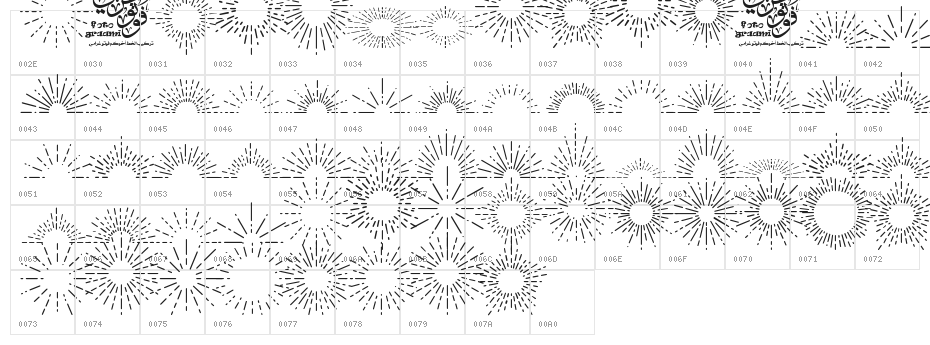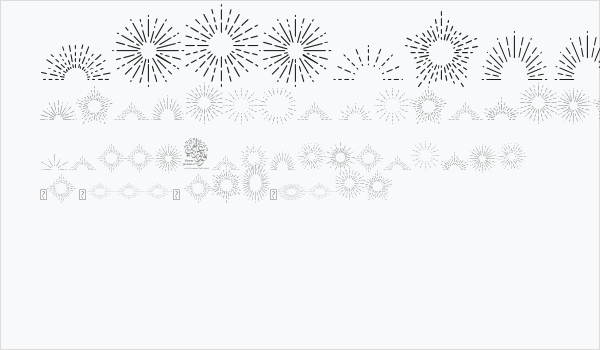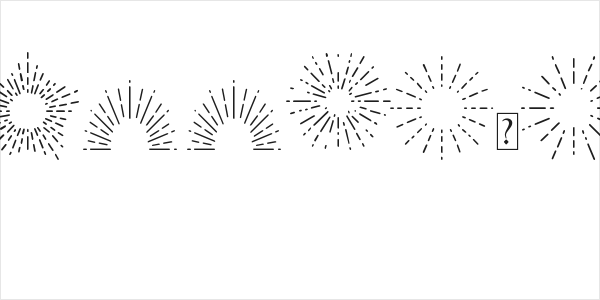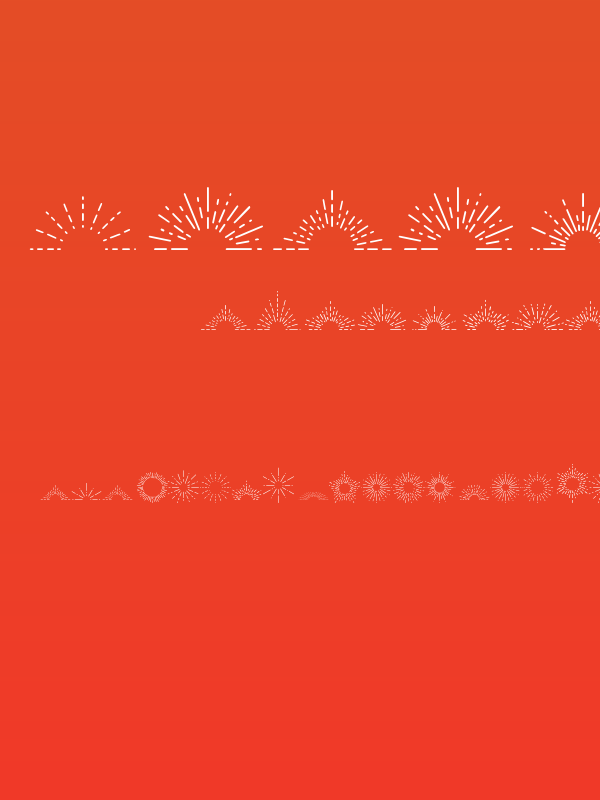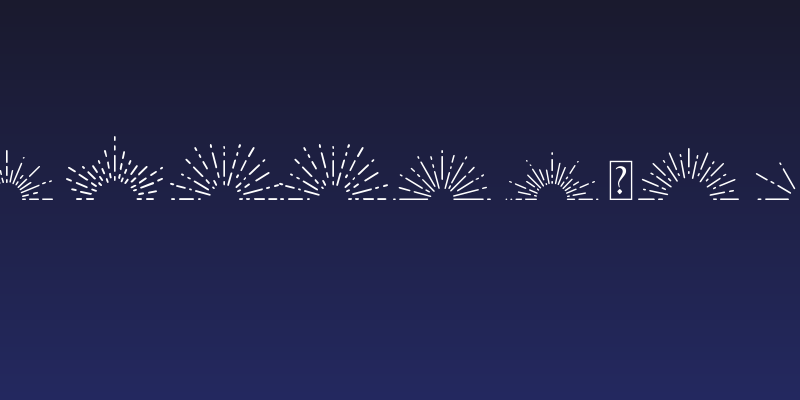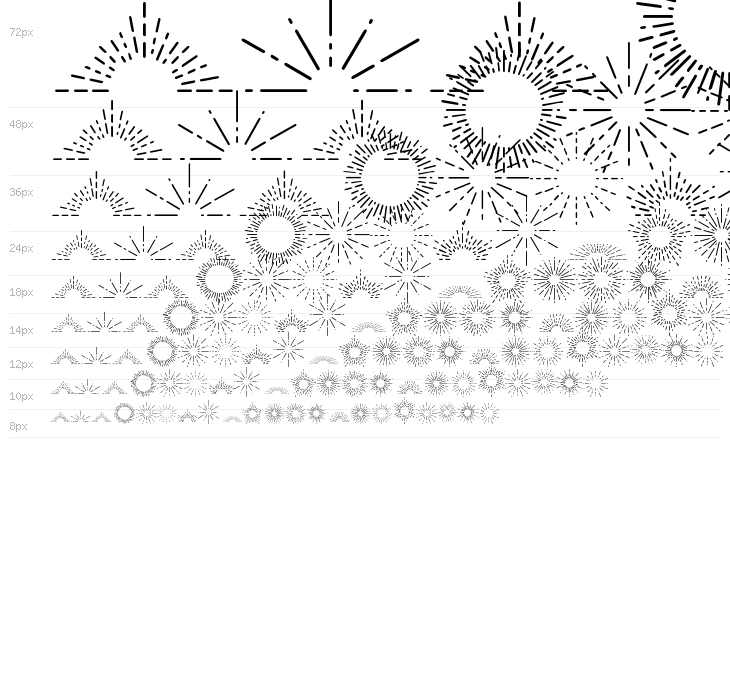
fotograami-shuruq Font
fotograami-shuruq Description
A decorative display set featuring various sunburst and radiating line motifs, with each character represented by a unique geometric or abstract burst pattern. The designs are composed of dotted and dashed lines, creating a dynamic and energetic visual effect. No traditional alphabetic or numeric glyphs are present.
| Overall Style | Decorative, Geometric, Abstract |
| Use Case | Decorative elements, Borders, Frames, Graphic design accents |
| Proposed Projects | Borders, dividers, invitations, certificates, decorative frames, graphic embellishments. |